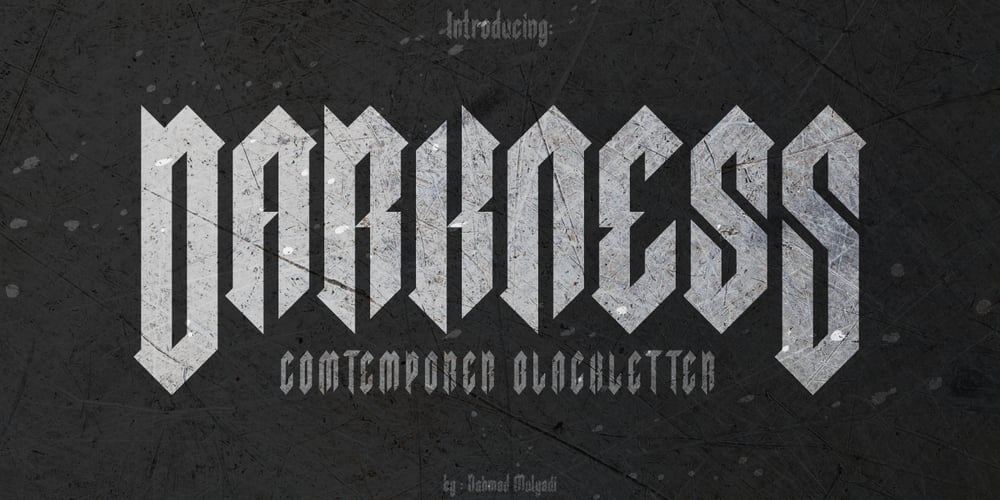
Darkness
Darkness font
Darkness Font Family was designed by Rahmad Mulyadi and published by BaronWNM. Darkness contains 1 styles and family package options. Blackletters have a long history and appeal to the world of lettering. “Darkness” is a blackletter font, but with a contemporary style with a simple form. Darkness is very suitable for use on product labels, logos, ads, brochures, invitations, etc.